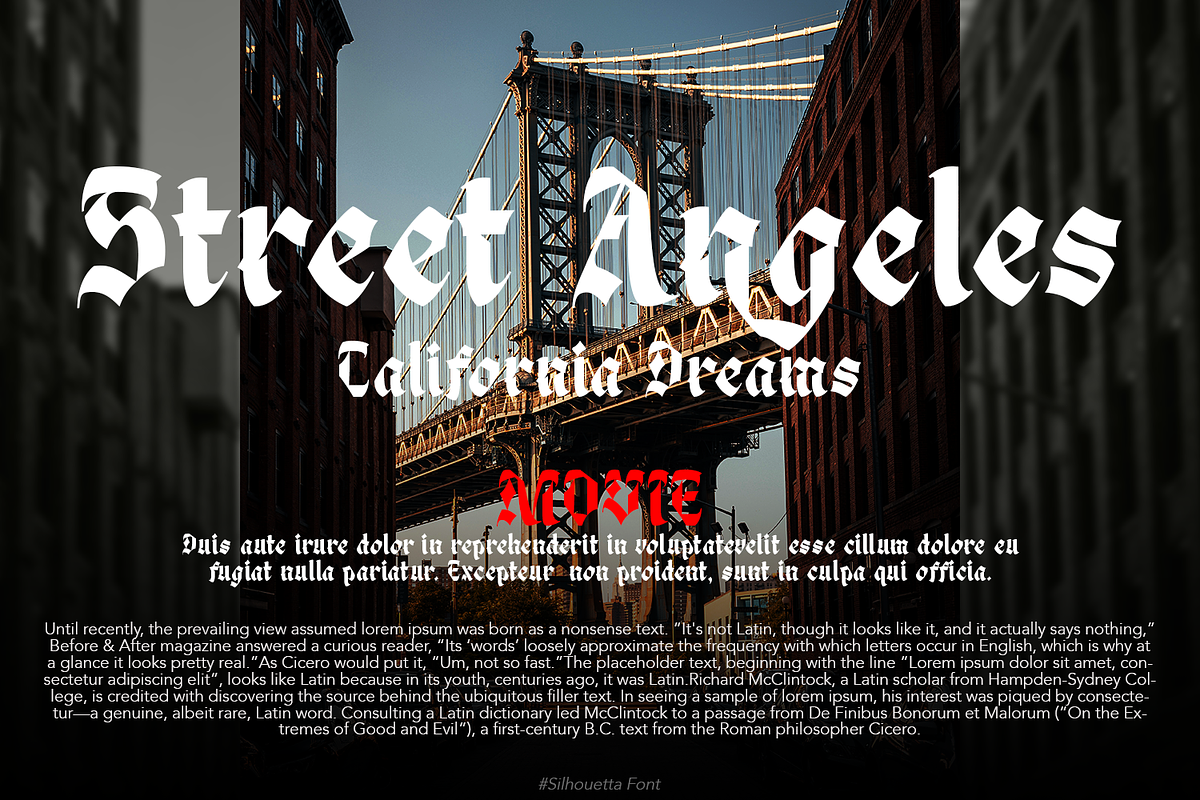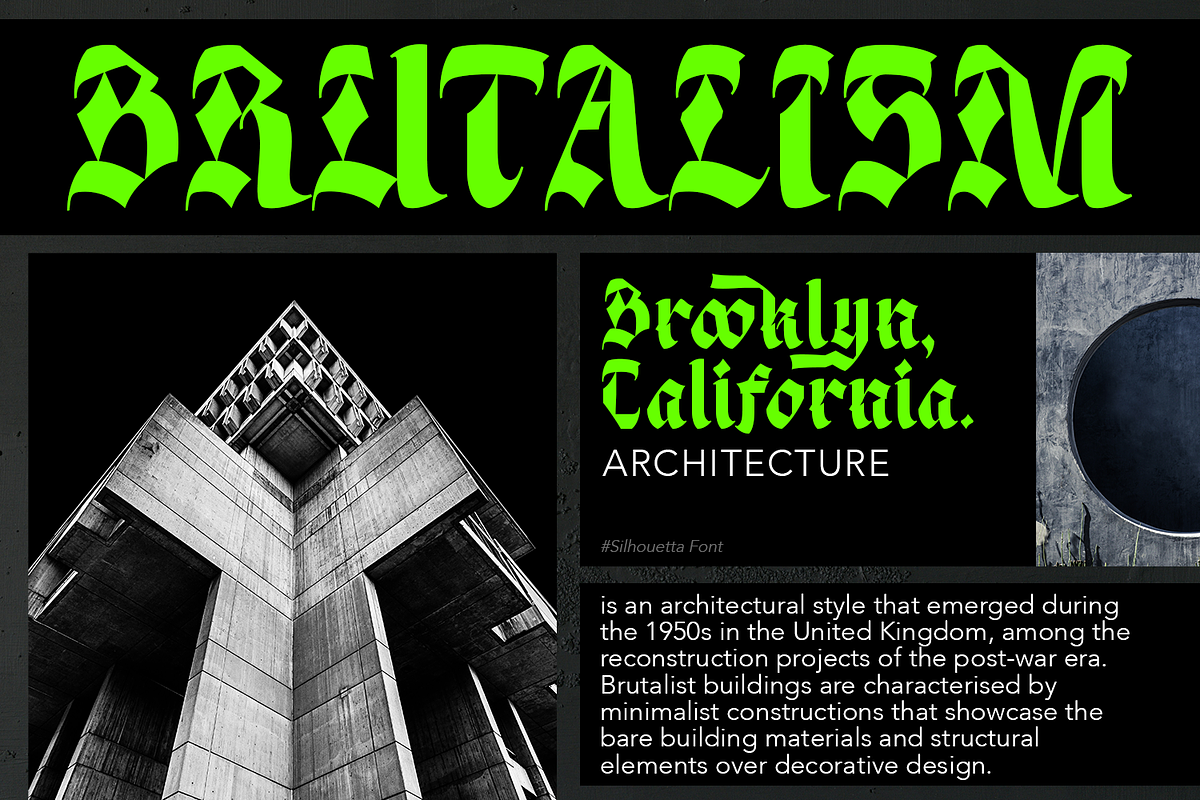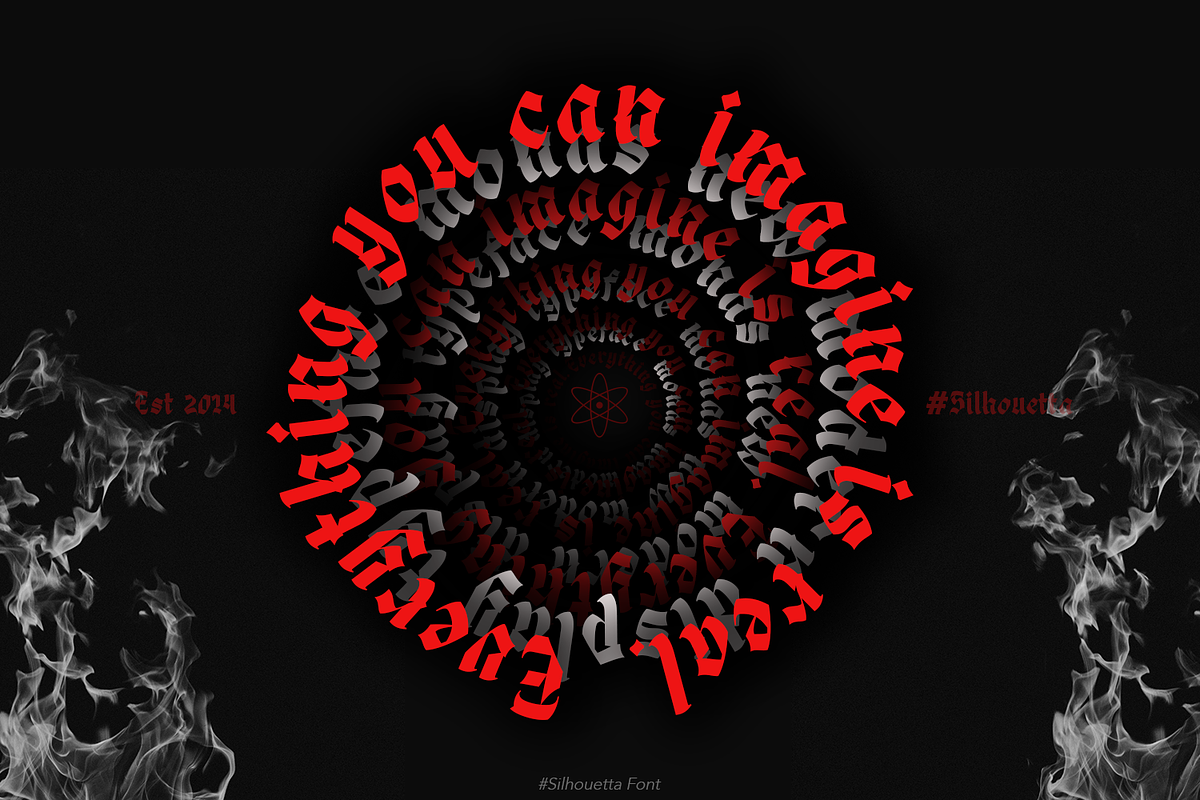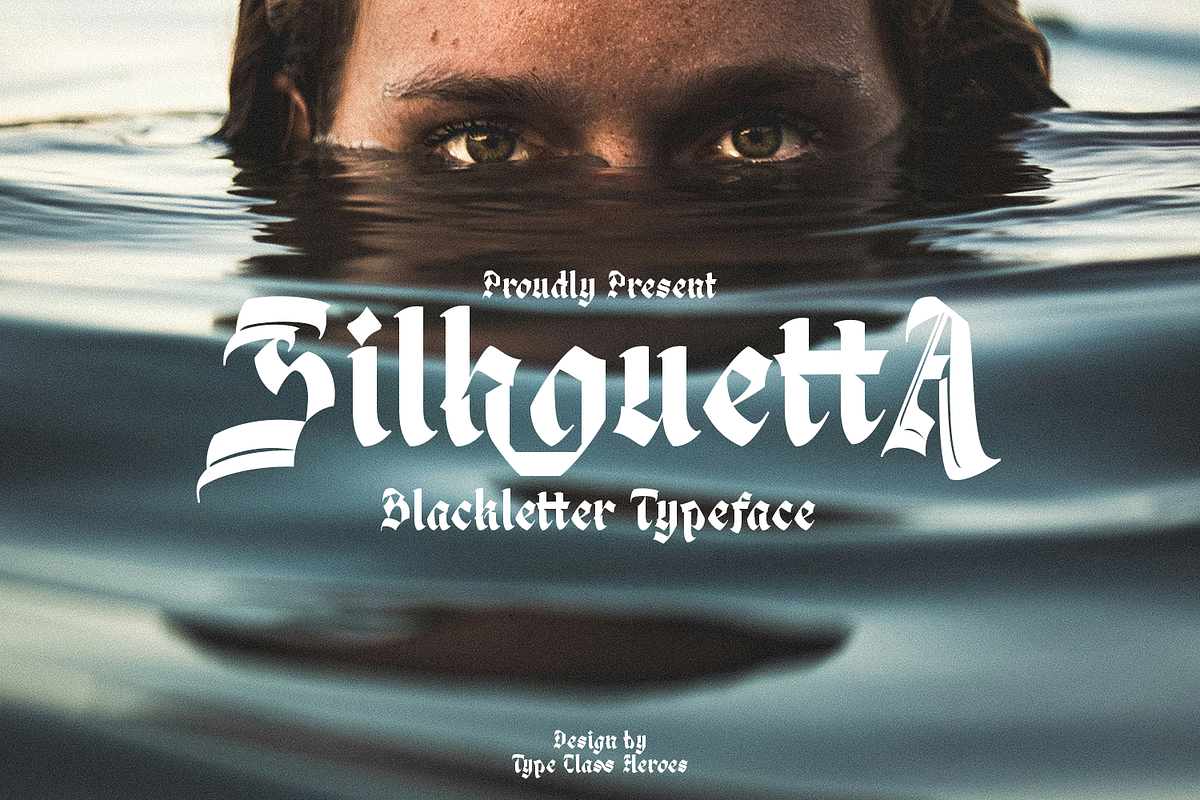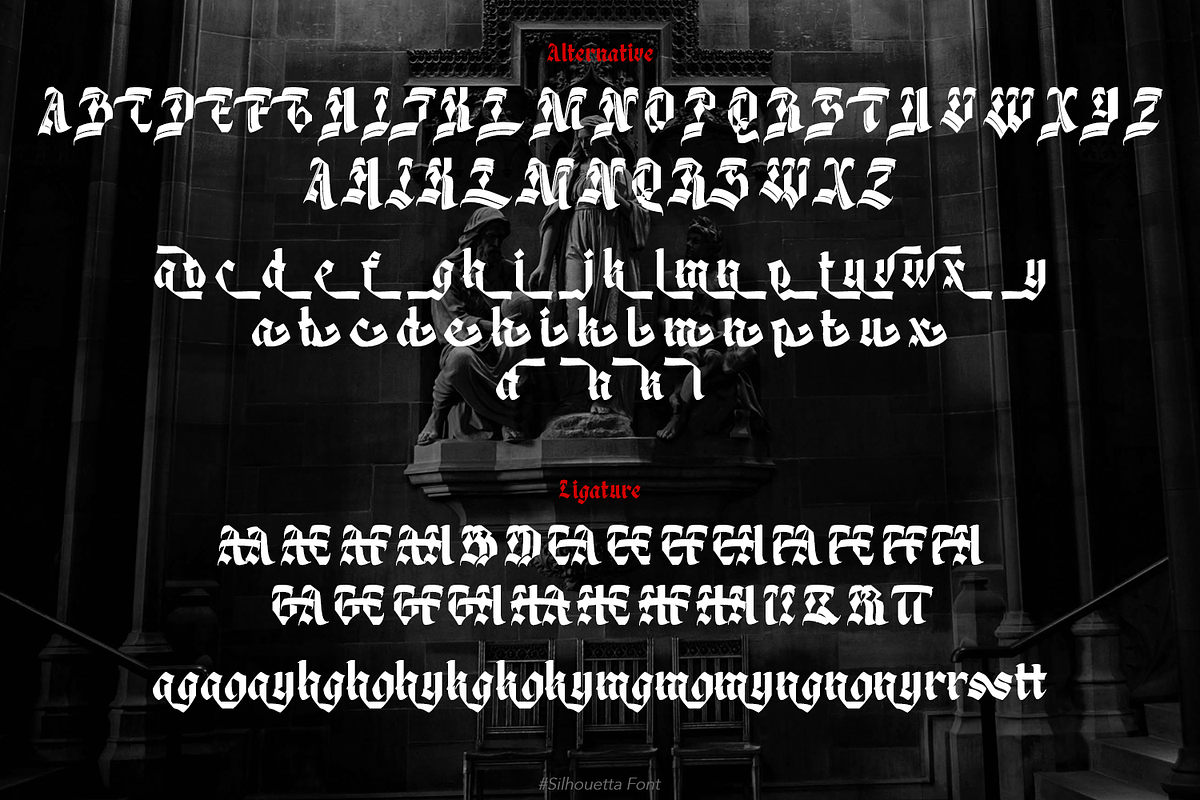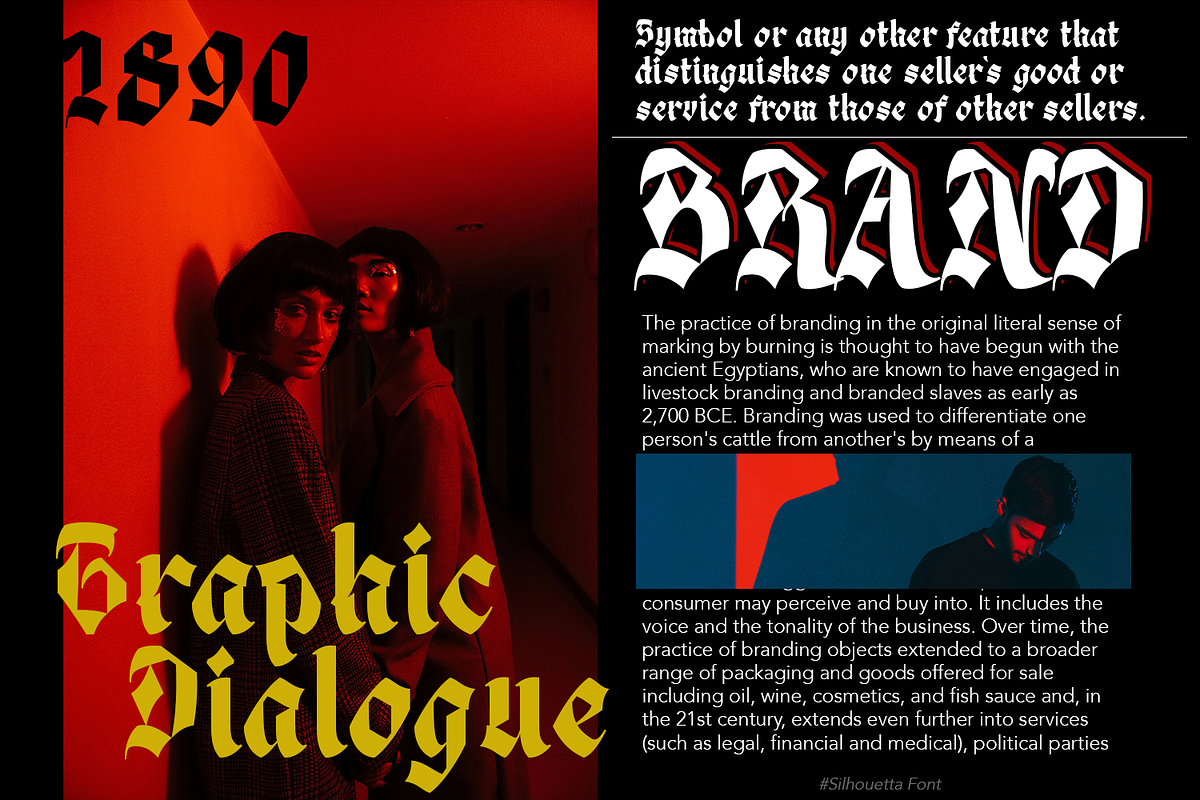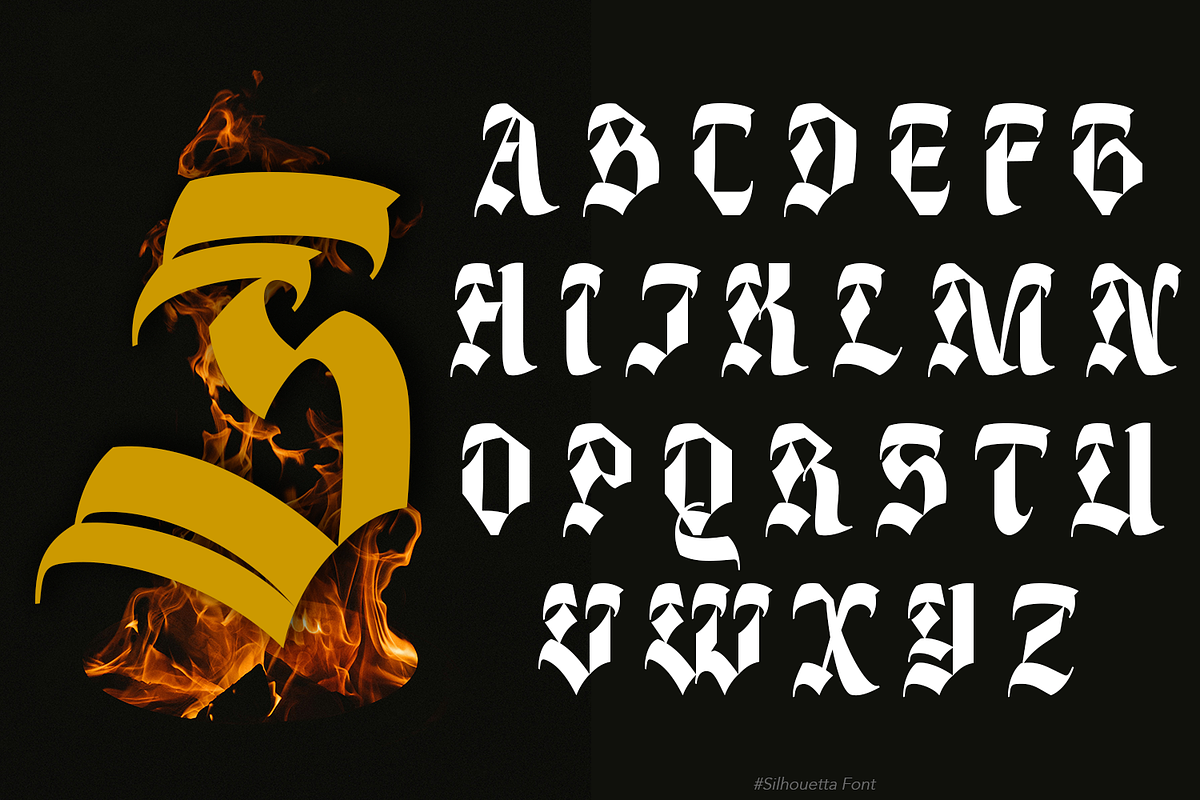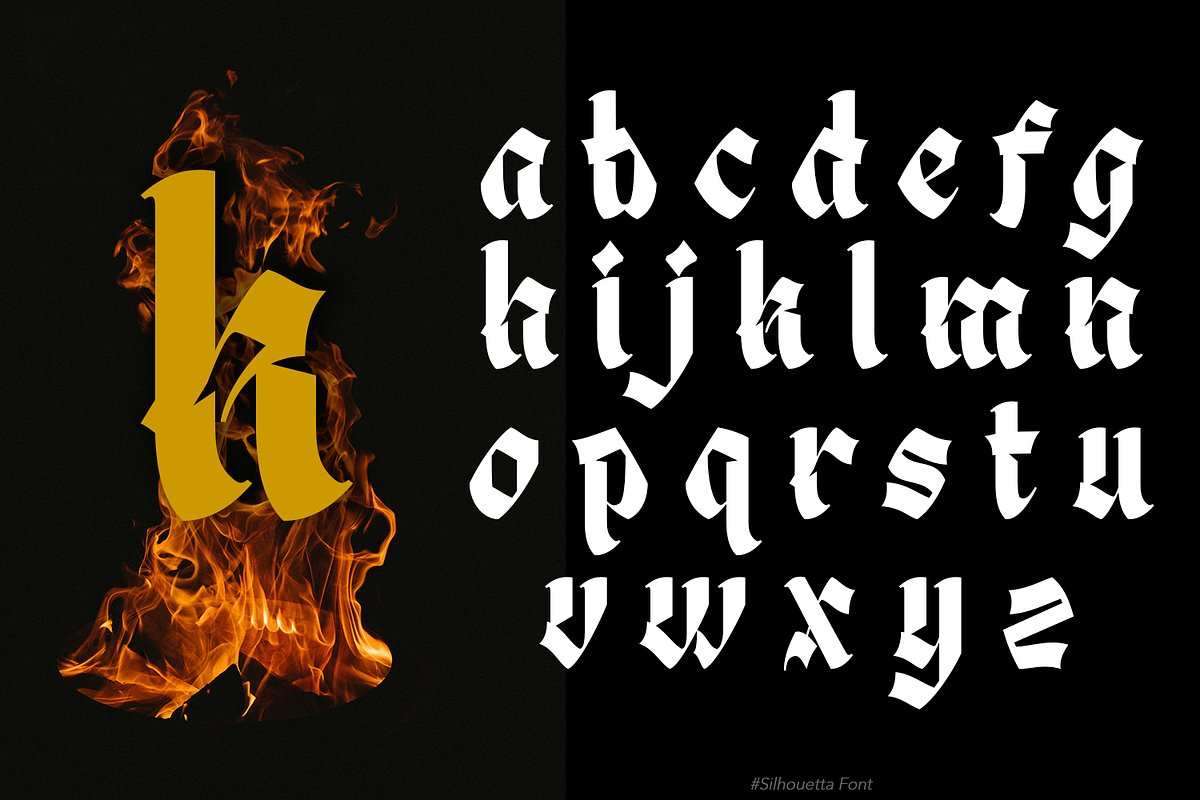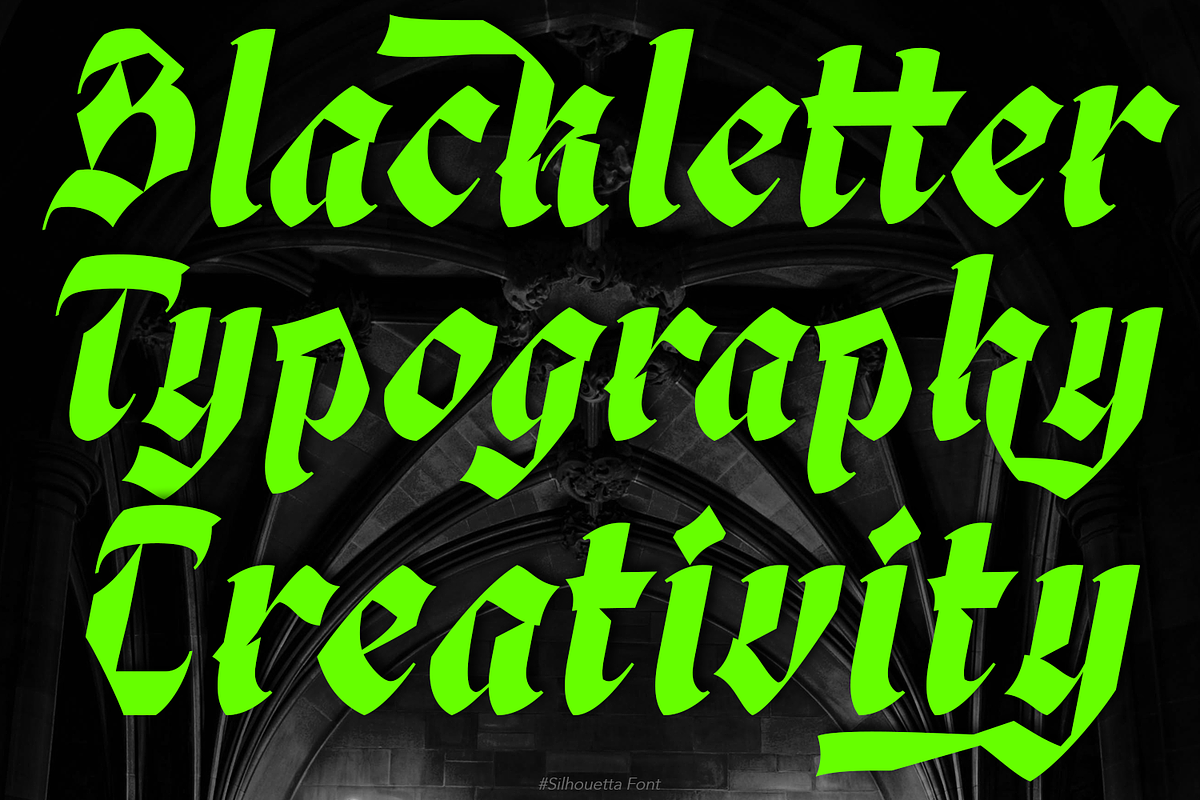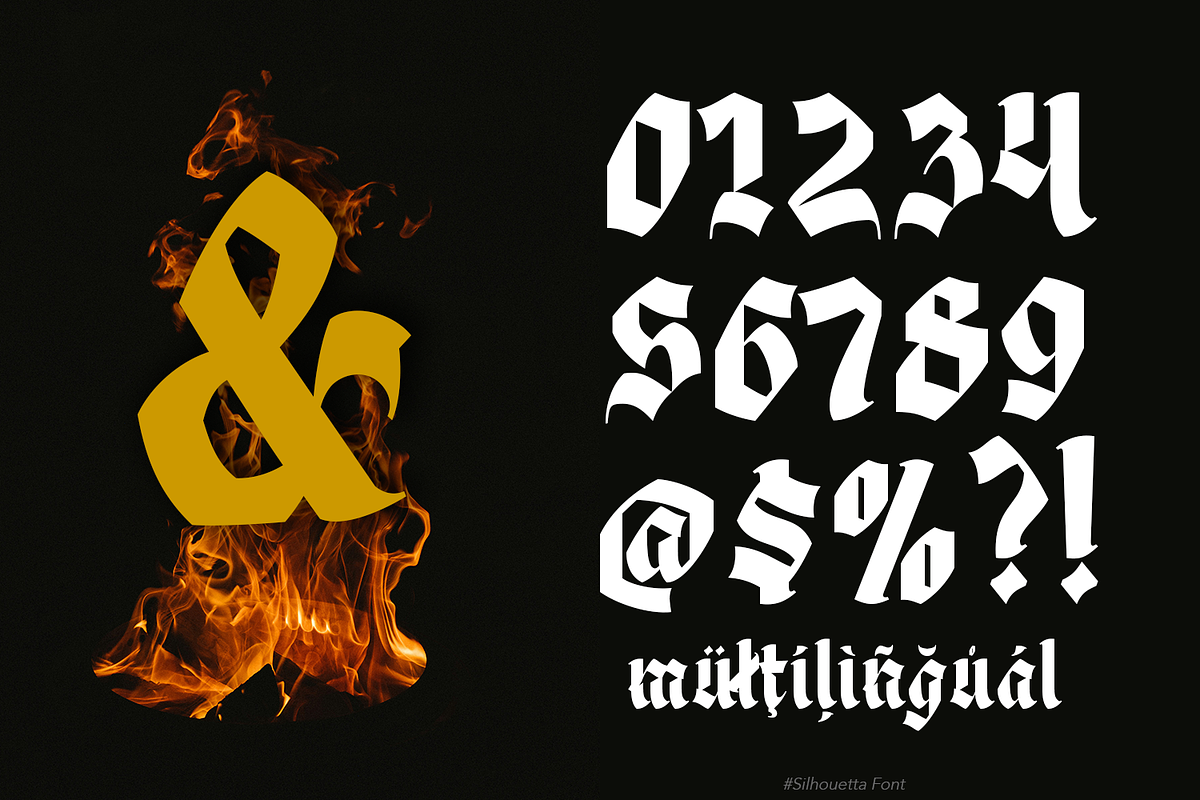
Silhouetta Blackletter
Hello, I'm really excited to introduce Silhouetta Blackletter typeface designed to become a strong font, this font has the potential to bring each of your creative ideas to the highest level. Come with different style combine with ligatures and special alternative glyphs so you can create a lot with layouts and compositions. Silhouetta brings a touch of luxury and bespoke custom typography suitable for merchandise, clothing, apparel, badges, logos, poster titles, and much more.
- International Glyphs